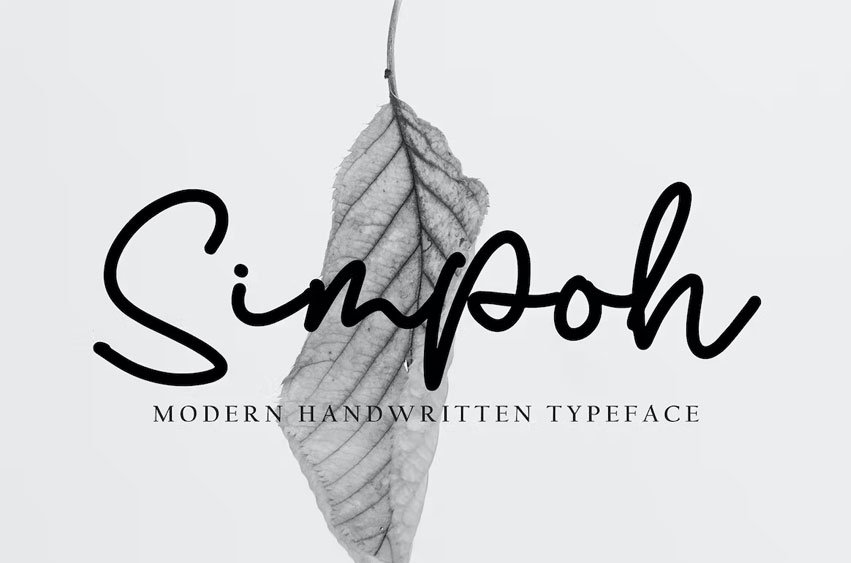
Simpoh Font with new style, this font will perfect for many different project ex: quotes, logo, blog header, poster, banding, letter, invitation, stationery, etc…